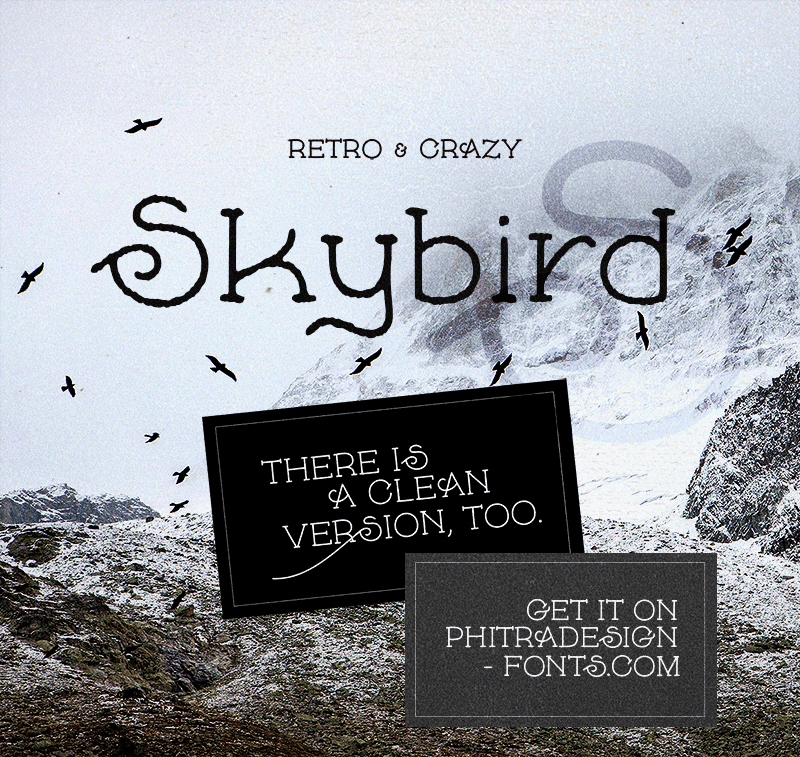
Skybird is a new crazy and retro font. Its glyphs are designed in a unique, typewriter style. This font is free for personal use but for any commercial use please go to: www.phitradesign-fonts.com and buy a license. Note: This is the rough version of the font, If you need the clean version, too - it's included in the commercial version. Thanks! |